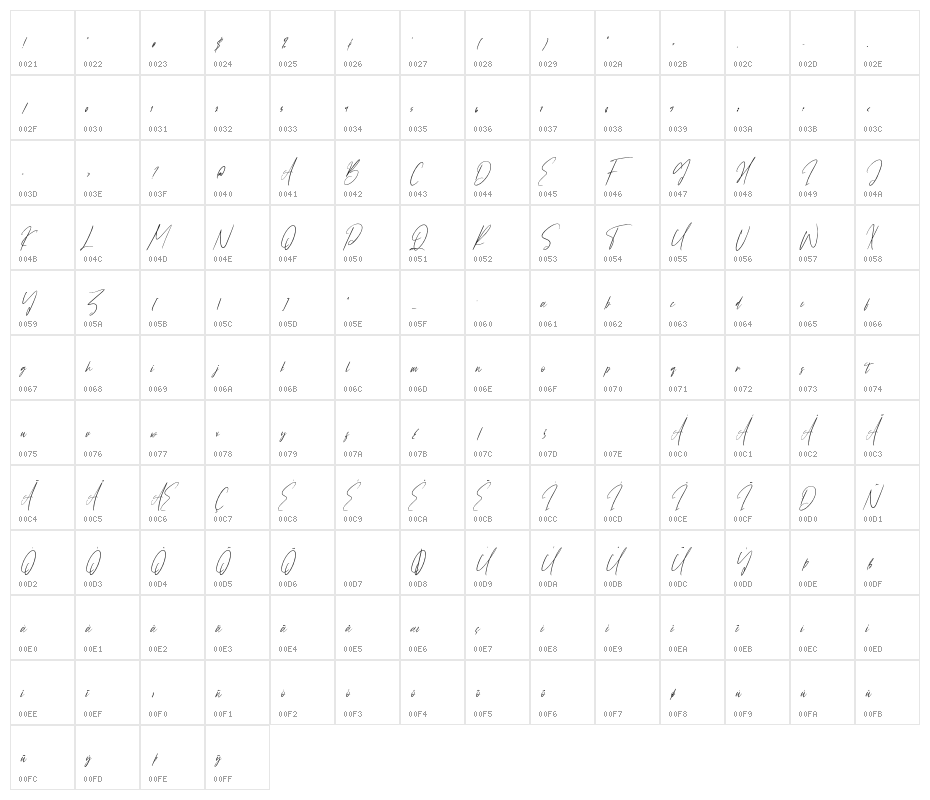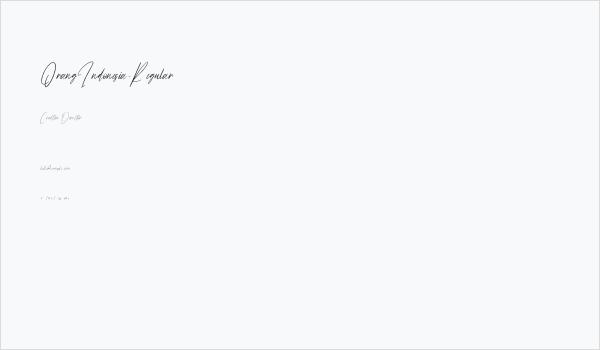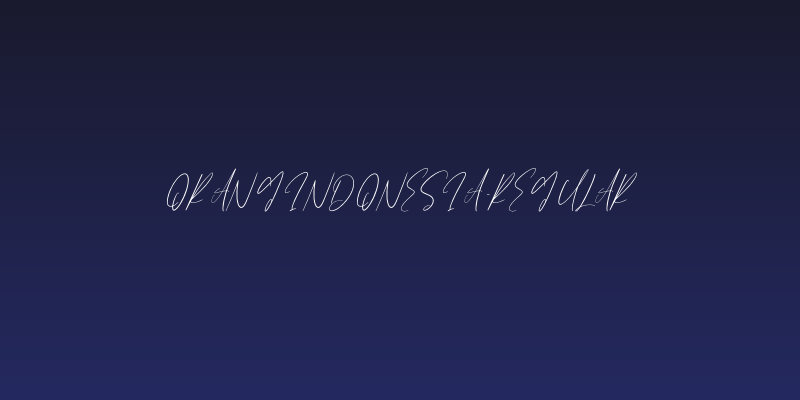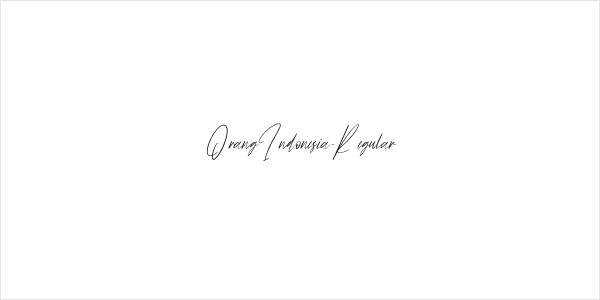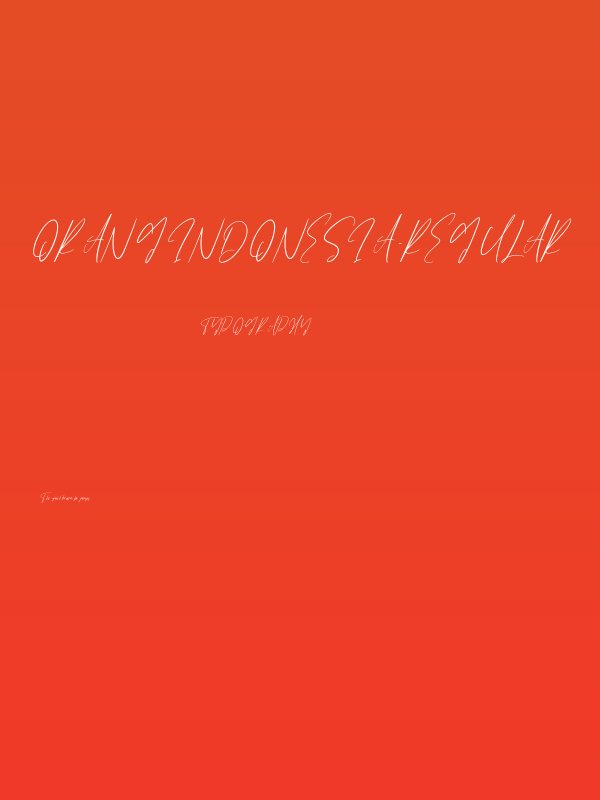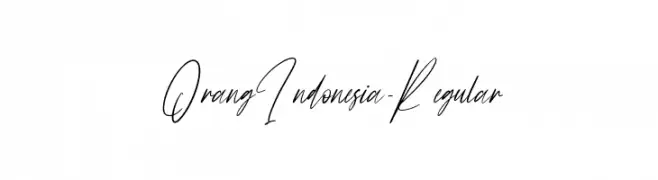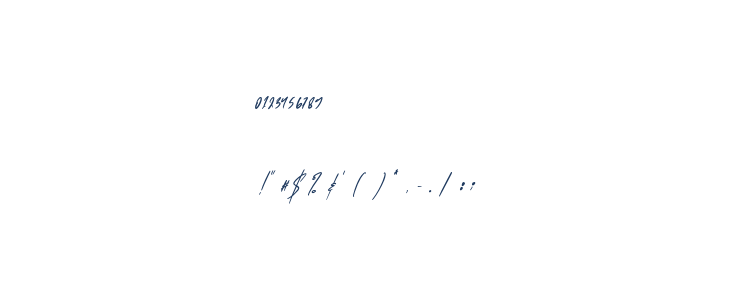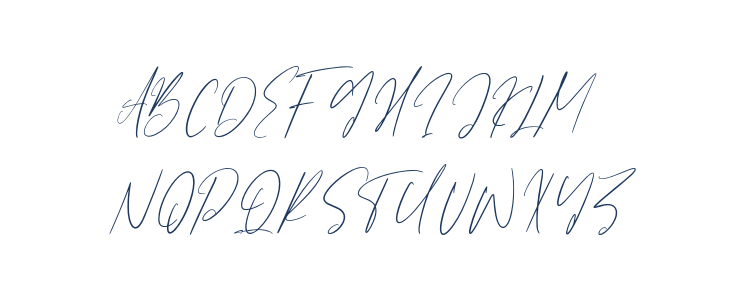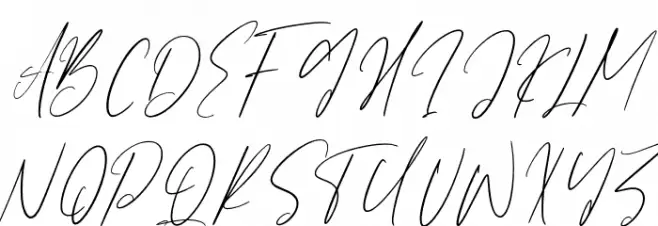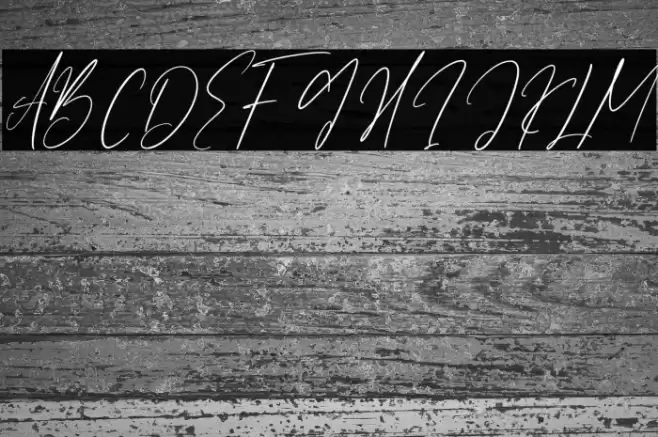
OrangIndonesia-Regular Font
OrangIndonesia-Regular Description
A handwritten script font with tall, elegant letterforms and fluid, connected strokes, featuring high contrast and a natural, organic flow. The uppercase letters are particularly elongated and expressive, while the lowercase maintains a consistent, cursive style.
| Overall Style | Decorative, Elegant, Artistic |
| Use Case | Logos, Invitations, Headlines, Decorative text |
| Proposed Projects | Wedding invitations, personal branding, greeting cards, quotes, artistic posters. |